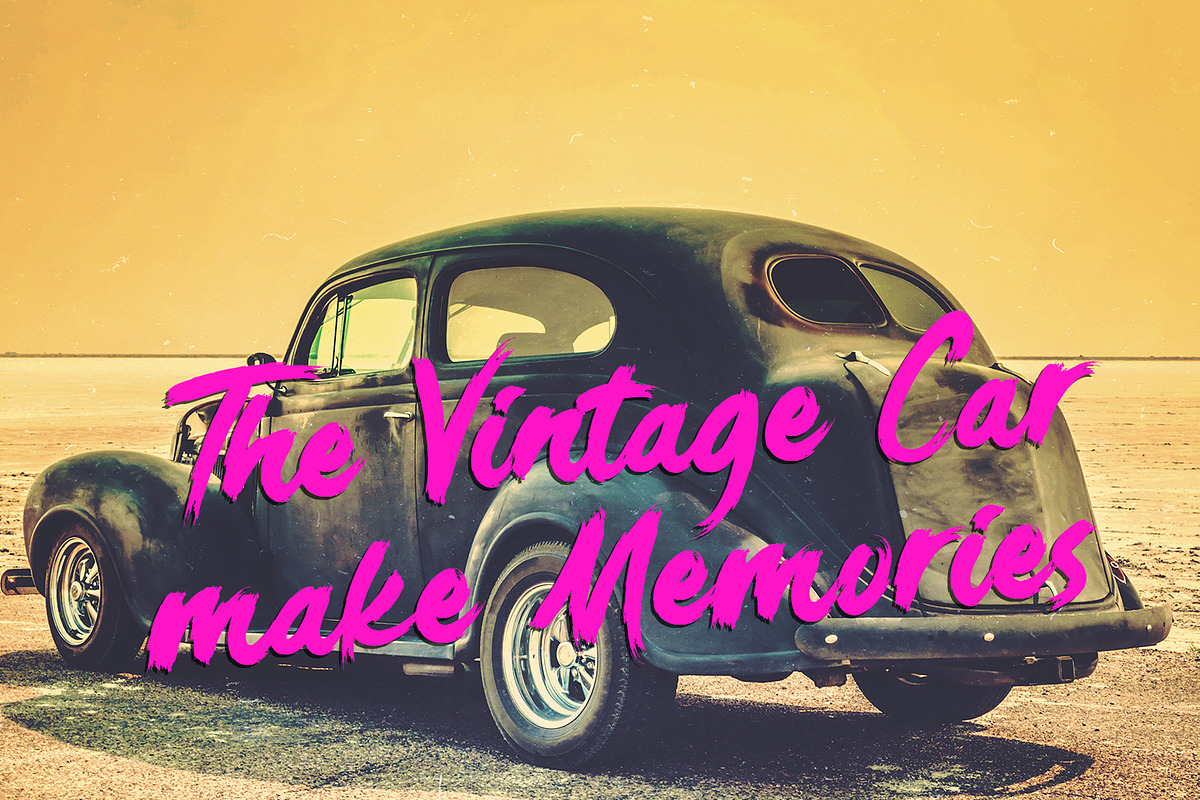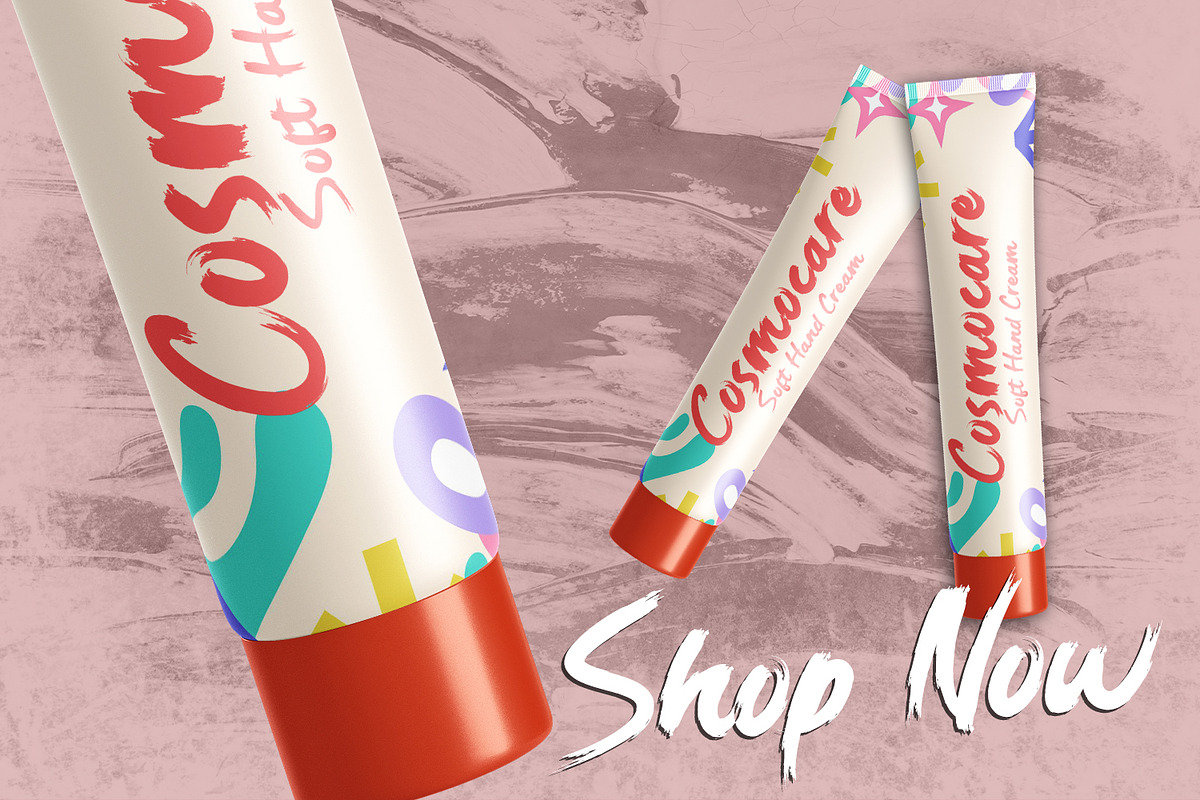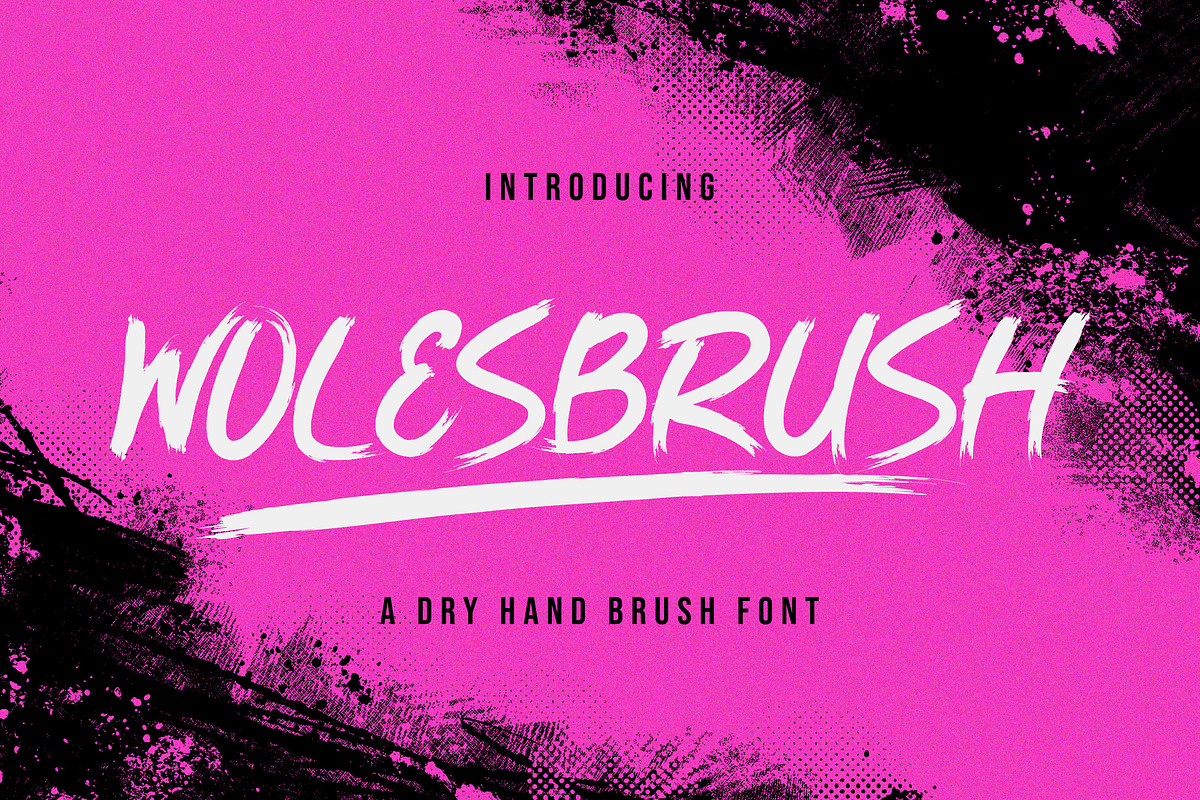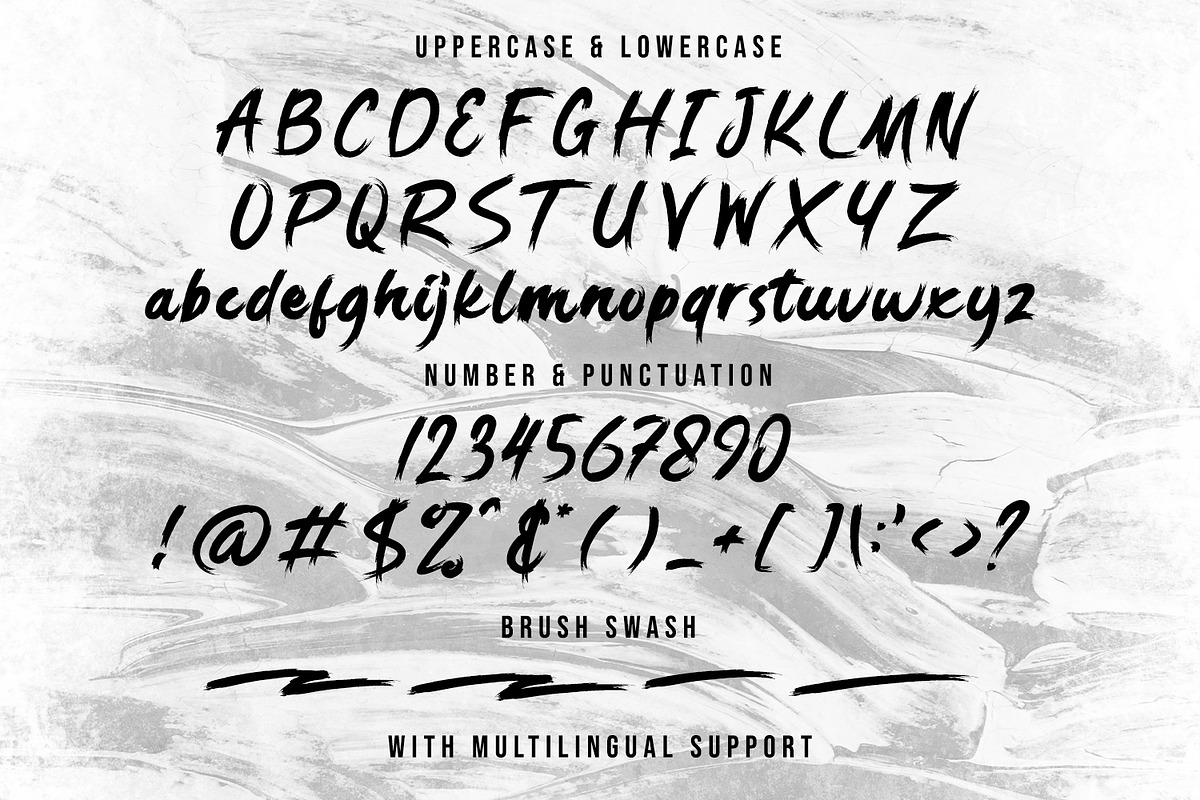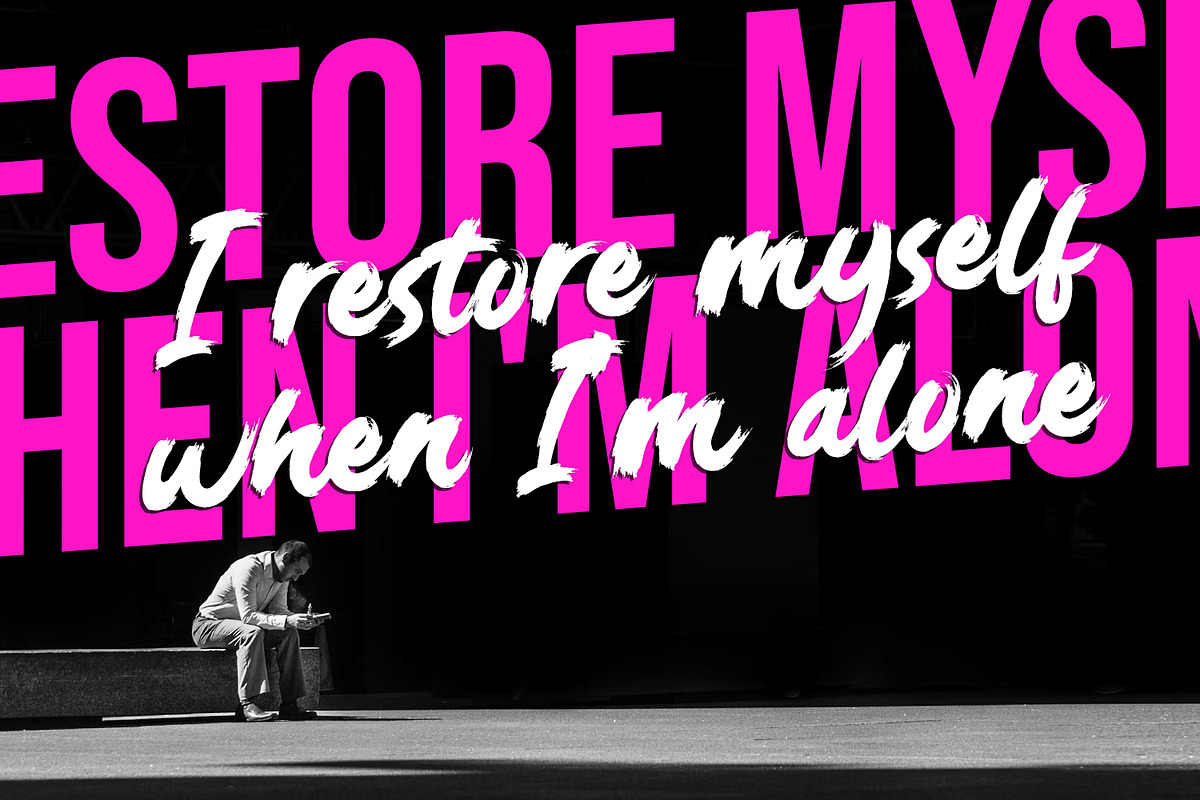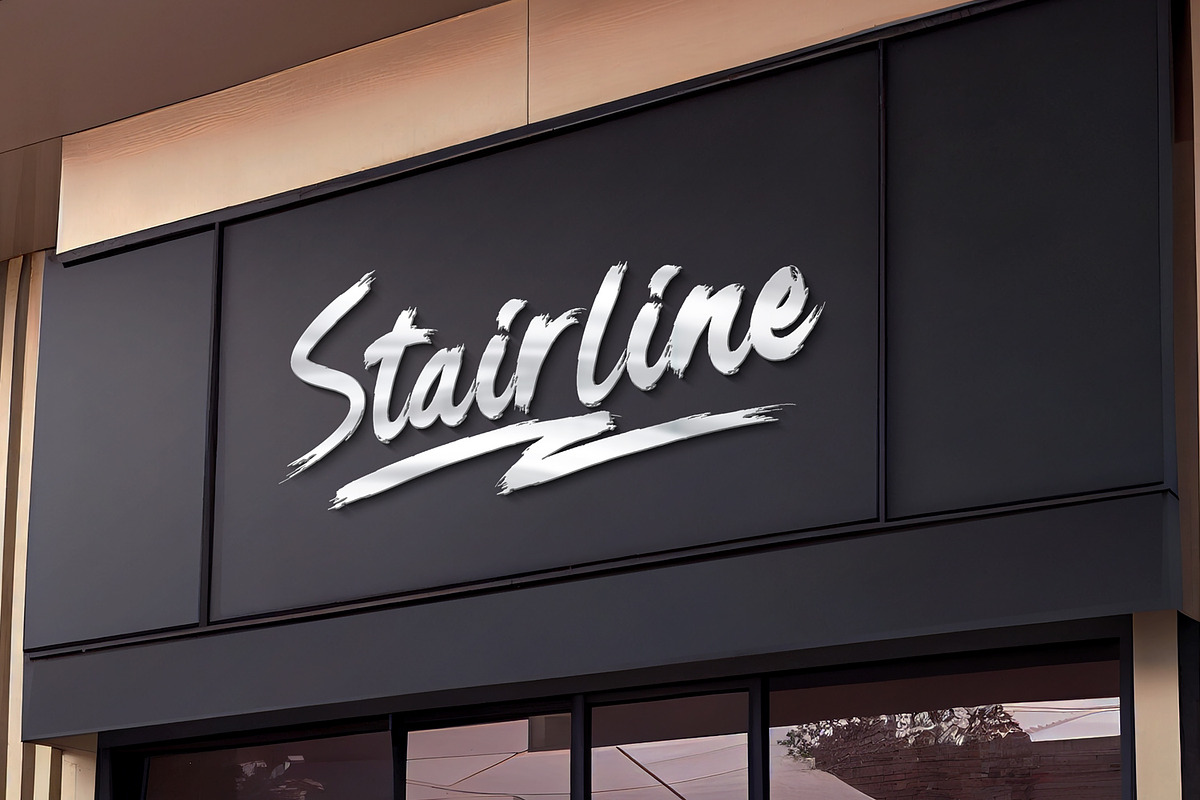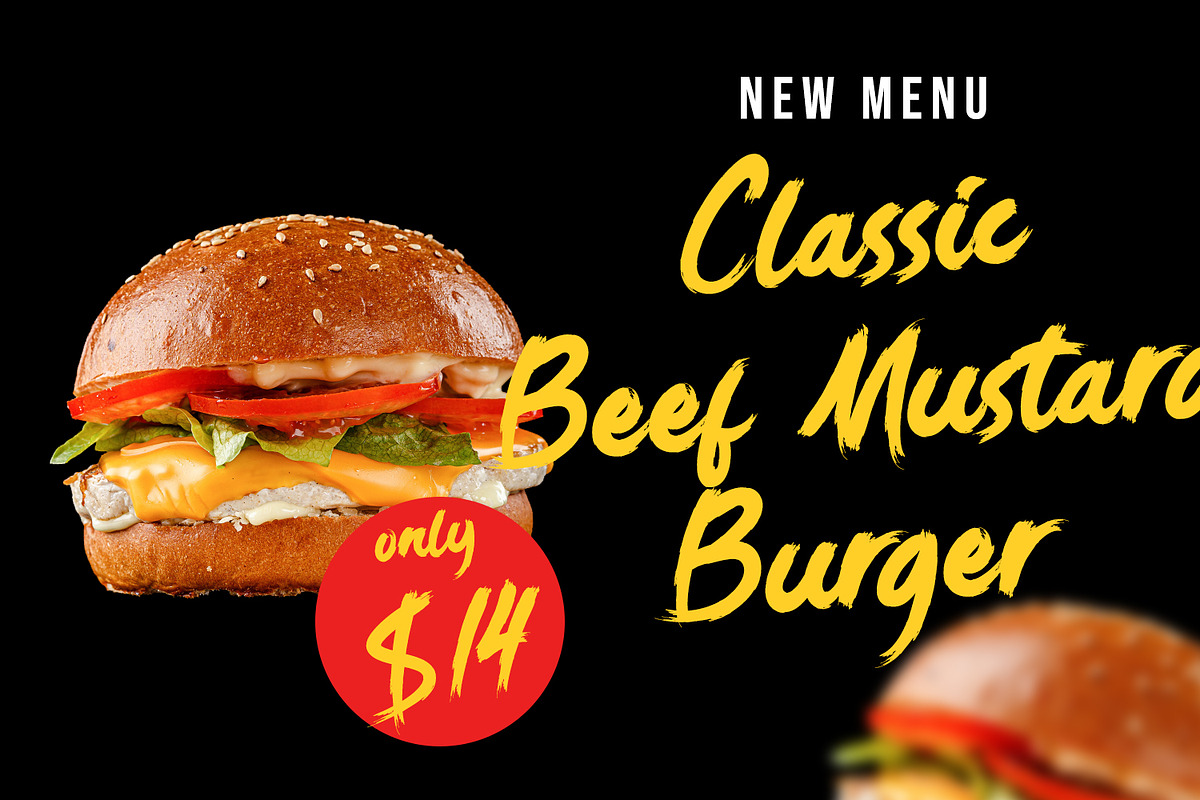
Wolesbrush Dry Hand Brush Font
Wolesbrush is a Modern Dry Hand Brush
Wolesbrush is a modern dry hand brush font that takes inspiration from sign painting, t-shirt, restaurant branding, and more. With various characters, you can make Woleshbrush feel personalized for your client's project. Create headlines, logos, apparel designs, and more with this versatile script font!
- Brush Swashes